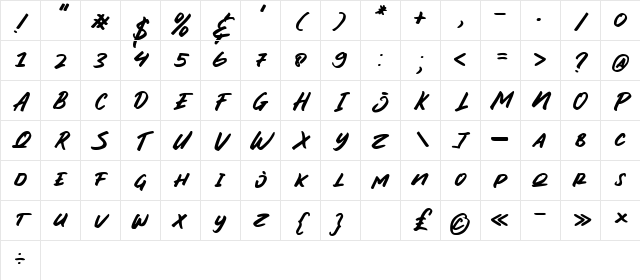
Hype Quarter Regular
Foundry: Azetype Studio
Designer: Muh. Aswar and Abdul Muthalib from Azetype Studio
Design Context for Hype Quarter
Hype Quarter is a composed and adaptable typeface that performs quietly and consistently across a wide range of design contexts.